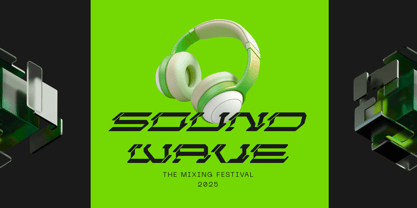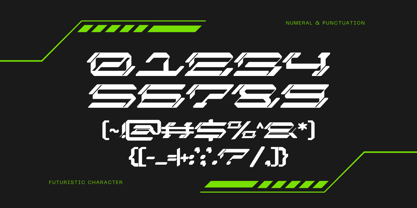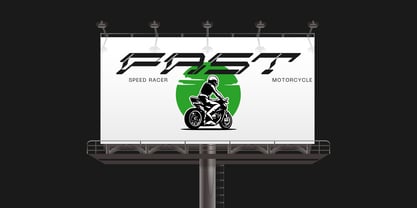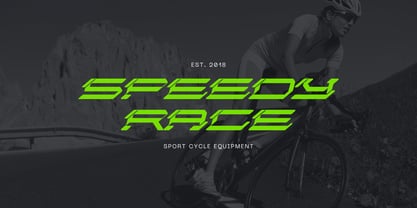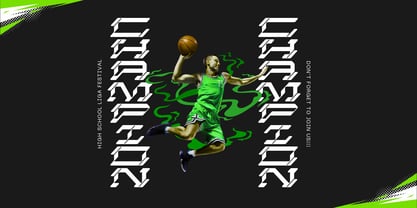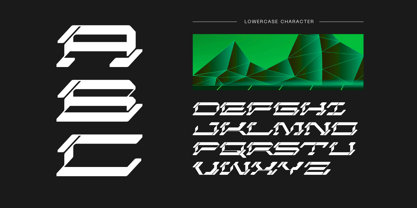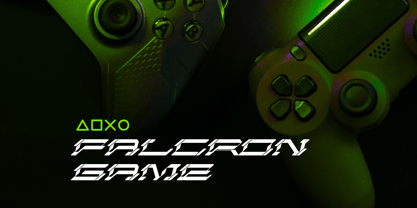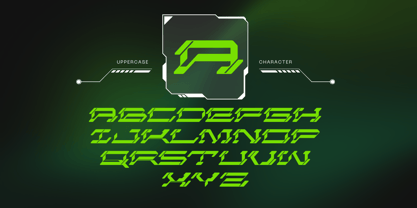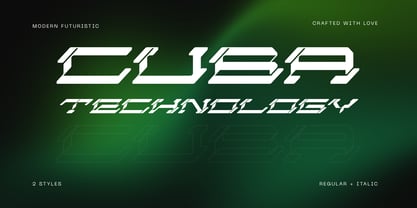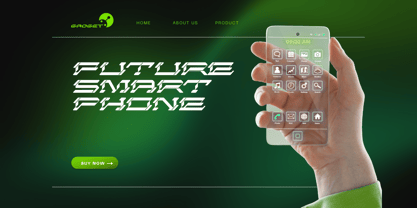
Cuba Technology
by Nirmana Visual
The Cuba Technology Font Family was designed by Sigit Dwipa and published by Nirmana Visual. Cuba Technology contains 2 styles and family package options. More about this family
Cuba Technology is a futuristic techno-cyberpunk font designed for bold and innovative visuals. Its sharp edges and digital-inspired structure deliver a cutting-edge aesthetic, perfect for gaming, sci-fi projects, tech branding, and modern interfaces. Available in Regular and Italic styles, this font combines sleek geometry with a cyber vibe, making it ideal for posters, logos, and immersive designs. Step into the future with Cuba Technology.
Designers: Sigit Dwipa
Foundry: Nirmana Visual